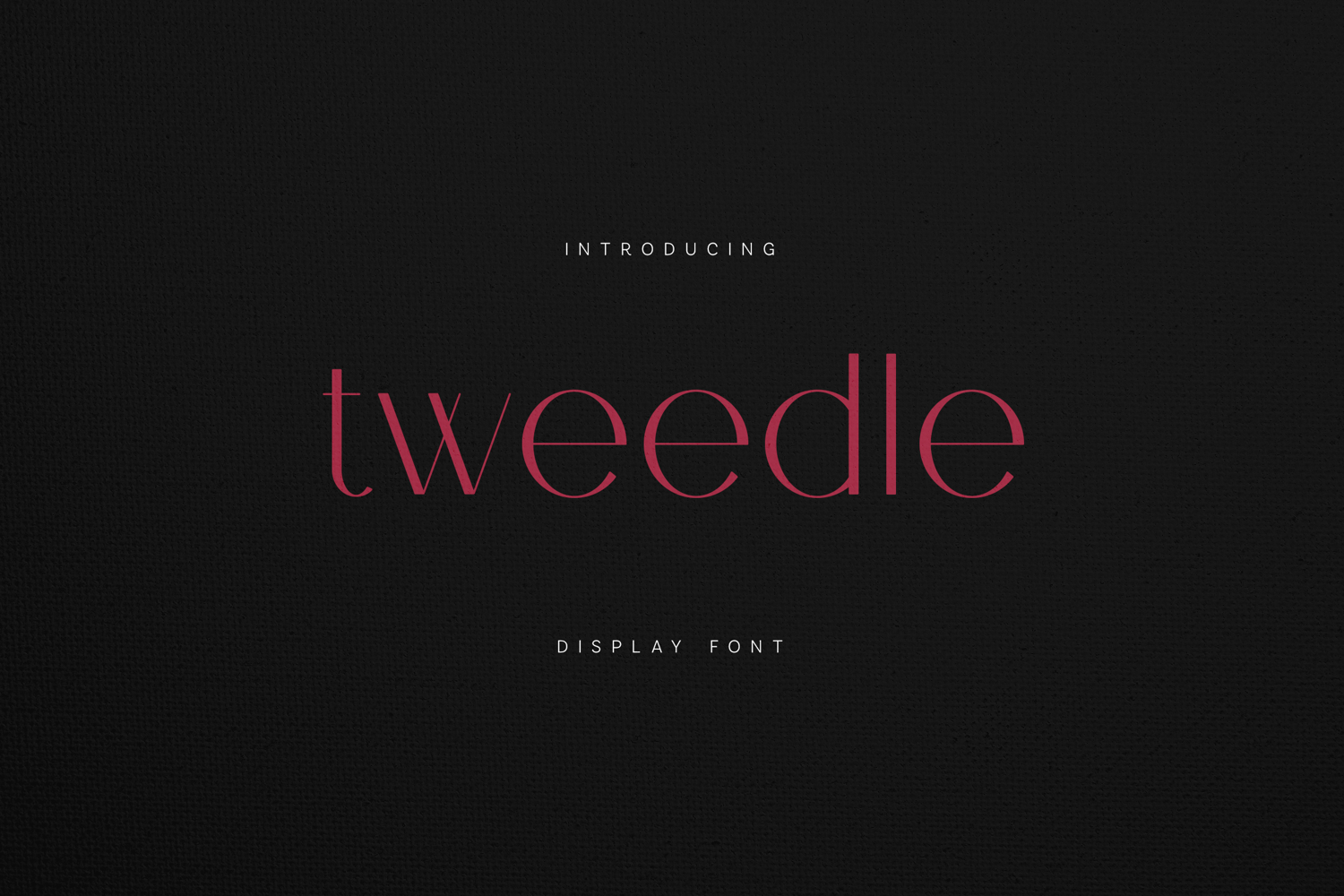
Tweedle Display Font Elegant Modern Serif for Branding
Tweedle is a refined modern display serif designed with elegant proportions, smooth curves, and subtle high-contrast detailing.
The letterforms combine contemporary minimalism with delicate serif sophistication, creating a graceful yet confident visual voice. Tweedle feels stylish, soft, and editorial — perfect for fashion branding, luxury packaging, beauty campaigns, and modern logo design.
Its balanced spacing and distinctive character shapes allow it to perform beautifully in large headlines while maintaining clarity in short branding statements.
Elegant. Modern. Expressive.